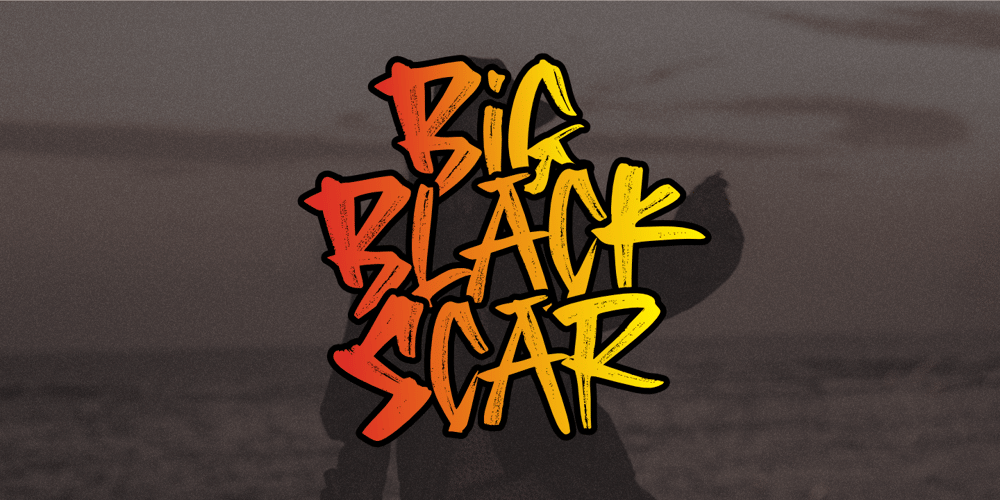
Big Black Scar
Big Black Scar font
Big Black Scar Font Family was designed by Nurul Hidayani and published by Olivetype. Big Black Scar contains 1 styles and family package options. Black Big Scar is a cool hand brush font with a graffiti style. This kind of font is suitable for poster, apparel, product branding, etc. This font is also supporting multi-Languages, which include: Afrikaans Albanian Catalan Danish Dutch English Estonian Finnish French German Italian Norwegian Portuguese Spanish Swedish Zulu.So what’s included: Basic Latin A-Z & a-z. Numbers, symbols, and punctuations. Multilingual Support. Accented Characters : ÀÁÂÃÄÅÆÇÈÉÊËÌÍÎÏÑÒÓÔÕÖØŒŠÙÚÛÜŸÝŽàáâãäåæçèéêëìíîïñòóôõöøœšùúûüýÿžß Thank You.